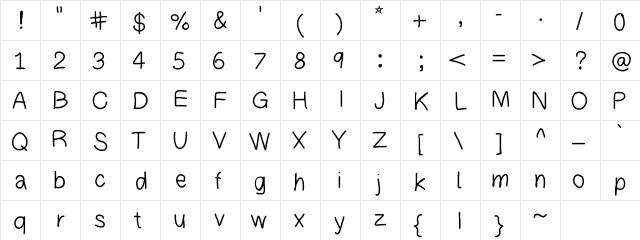
PatchsFont Medium Font Preview
PatchsFont Medium
Design Context for PatchsFont Typeface
PatchsFont takes a measured approach to typography — its balanced proportions and neutral character make it a reliable workhorse for both digital and print work.